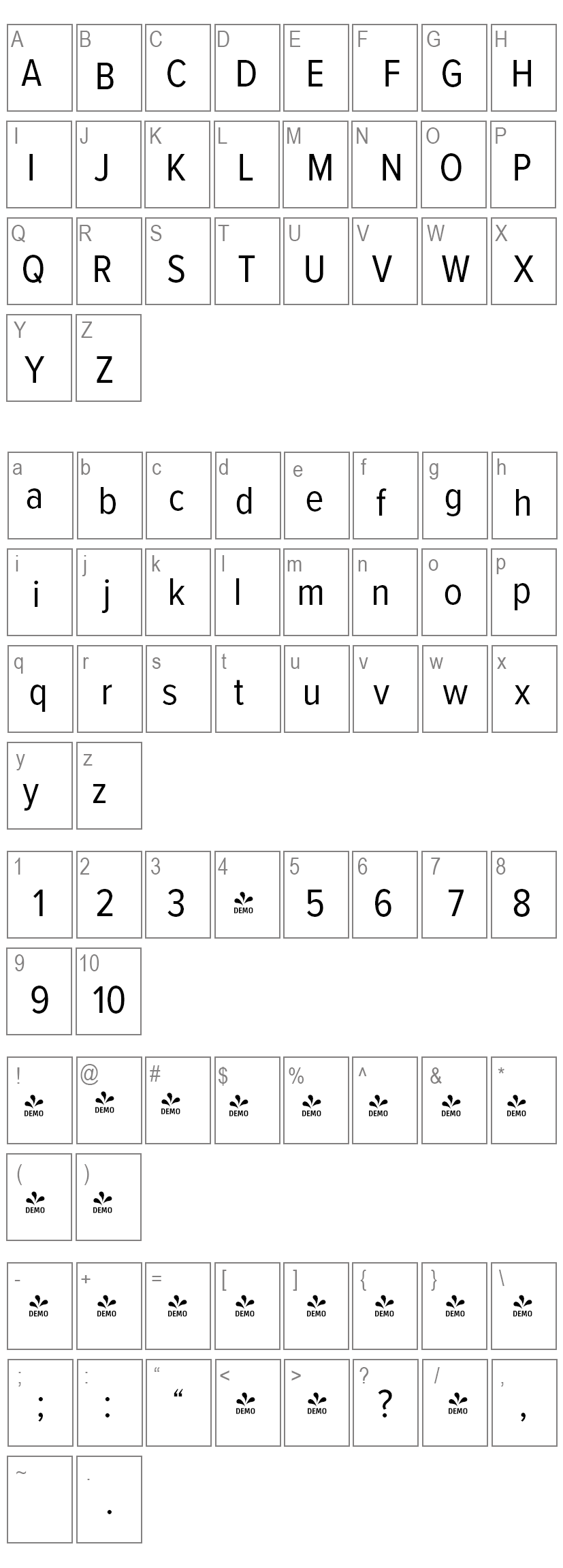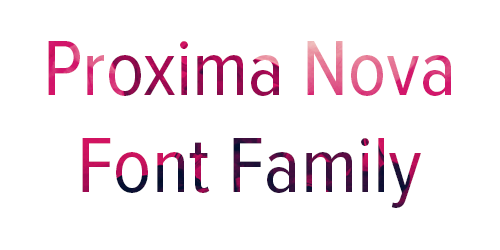
Proxima Nova Font Family
Proxima Nova is a versatile and elegant sans-serif font family that exudes a sense of sophistication and professionalism. Designed to be both visually appealing and highly functional, Proxima Nova is perfect for a wide range of projects, from branding and advertising to web design and print materials.
Key Features of Proxima Nova:
• Geometric Structure: Proxima Nova’s clean lines and geometric shapes create a modern and contemporary aesthetic.
• Excellent Readability: The font’s balanced proportions and clear glyphs ensure easy legibility, even in smaller sizes.
• Wide Range of Styles: The font family includes multiple styles, such as regular, italic, bold, and bold italic, to suit different design needs.
• Versatile Applications: Proxima Nova is suitable for headlines and body text, making it a versatile choice for various projects.
Uses of Proxima Nova:
• Branding and Logo Design: The font’s clean and modern appearance makes it an ideal choice for creating strong and memorable brand identities.
• Advertising and Marketing Materials: Its versatility allows it to be used effectively in print and digital campaigns.
• Web Design: Proxima Nova’s excellent readability and clean lines make it a popular website choice.
• Packaging and Product Design: Its sophisticated aesthetic can enhance the overall look and feel of products.
Alternative to Proxima Nova:
While Proxima Nova is a fantastic option, other popular sans-serif fonts with similar aesthetics include:
• Helvetica: A classic sans-serif font known for its clean lines and versatility.
• Arial: A widely used sans-serif font with a similar appearance to Helvetica.
• Roboto: A modern sans-serif font designed for digital interfaces.